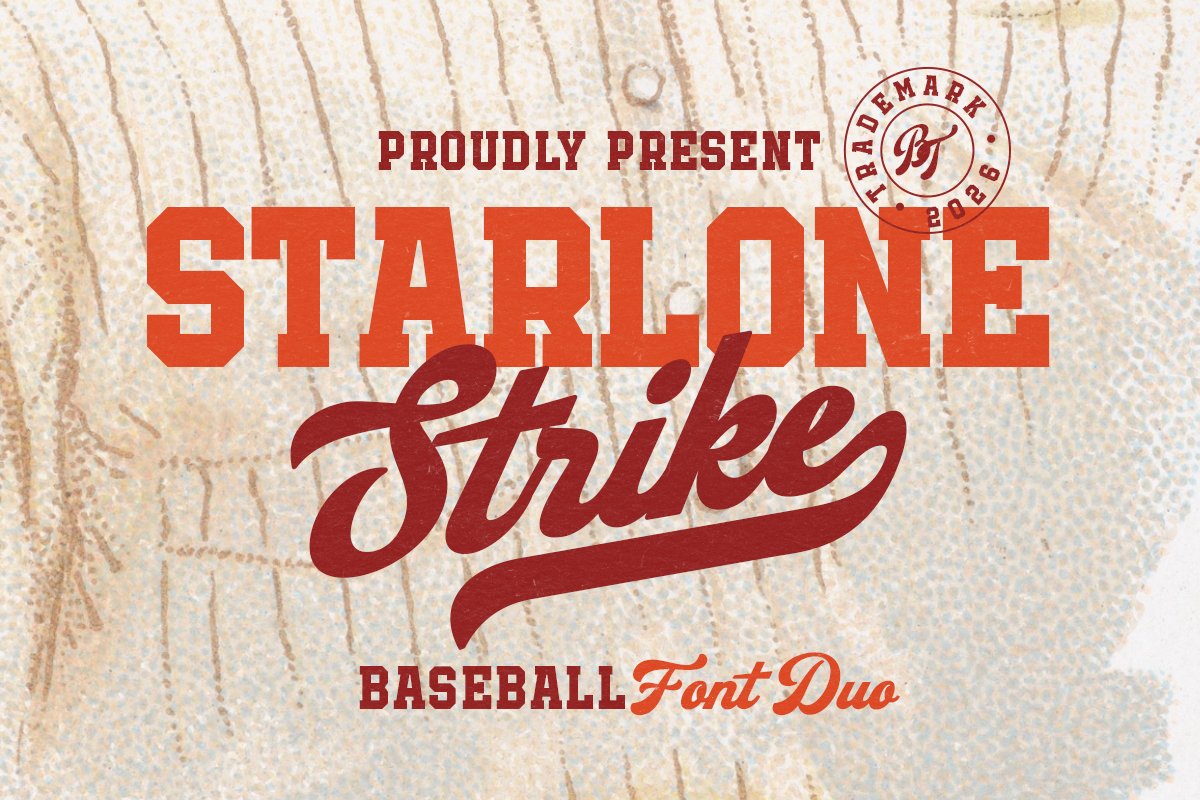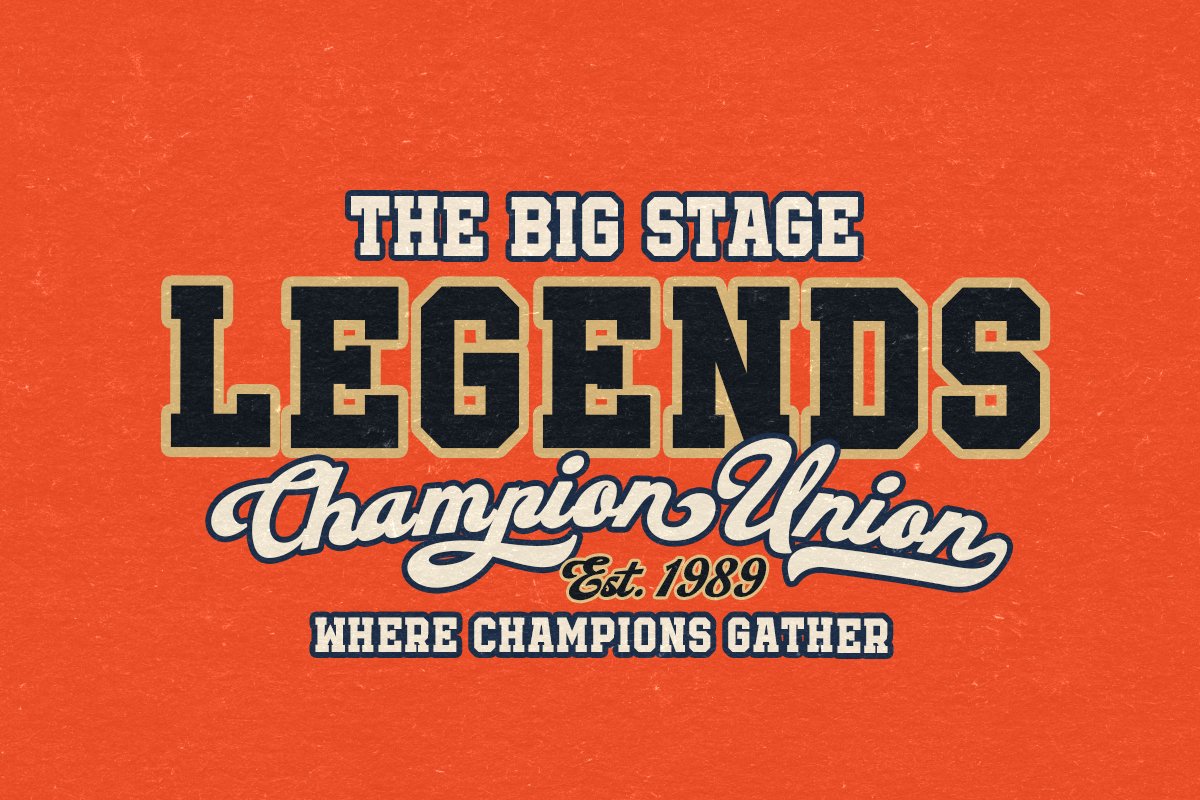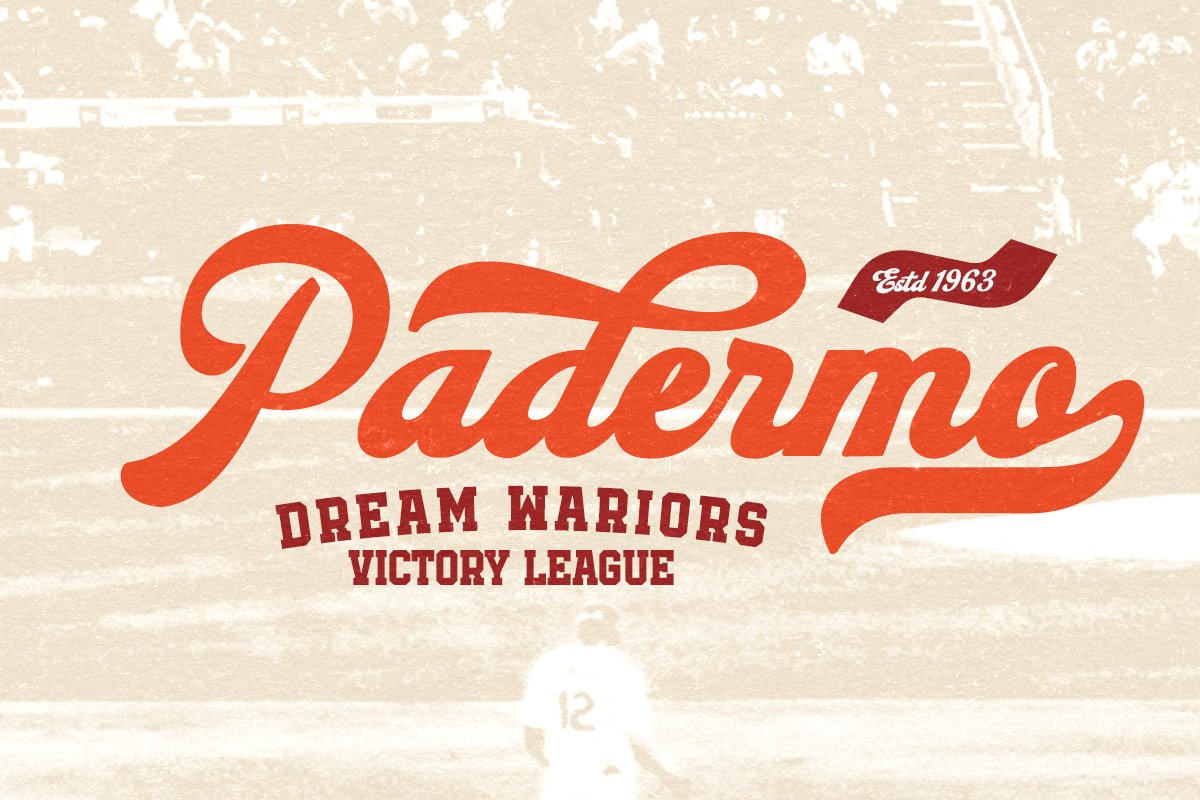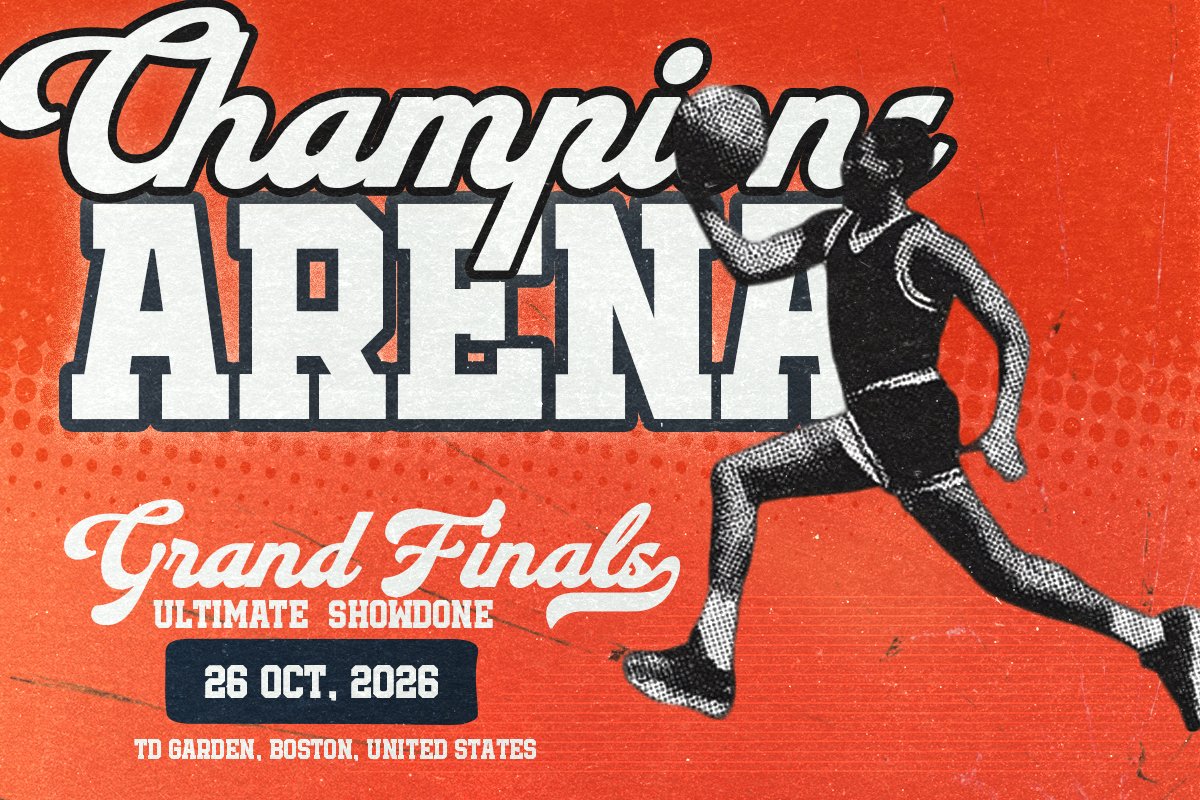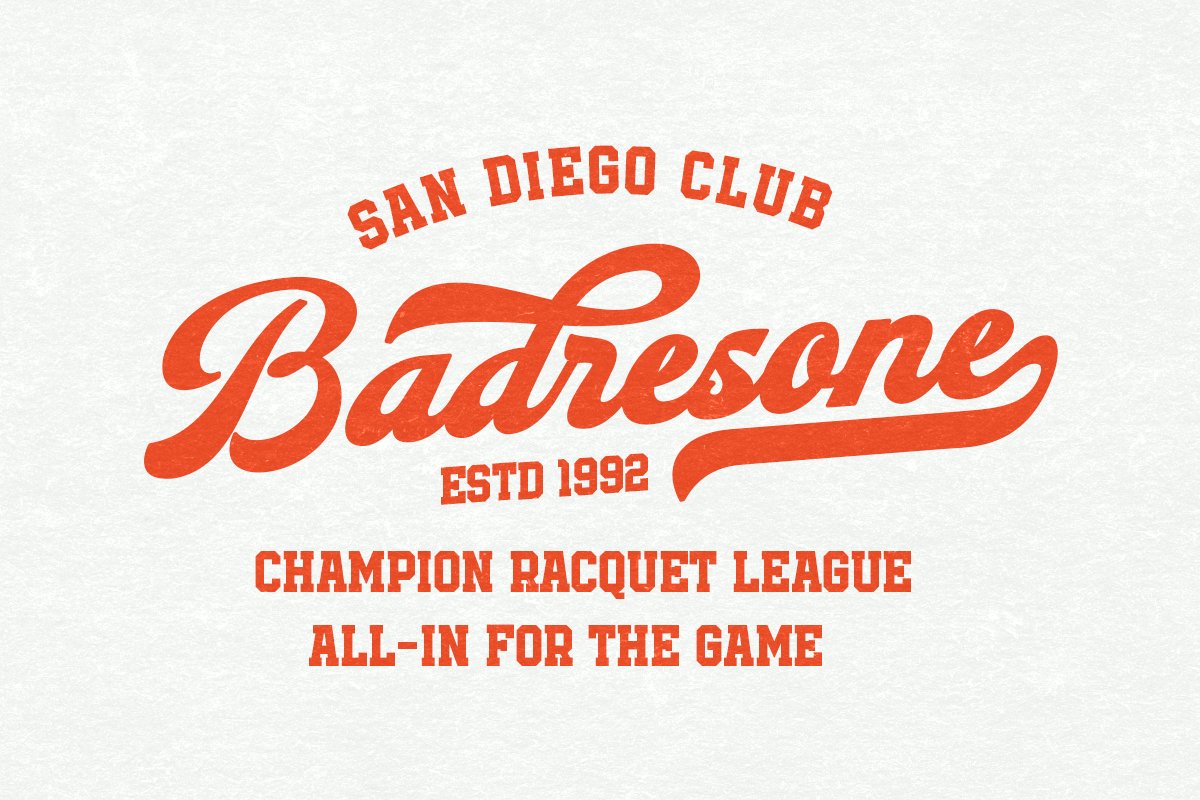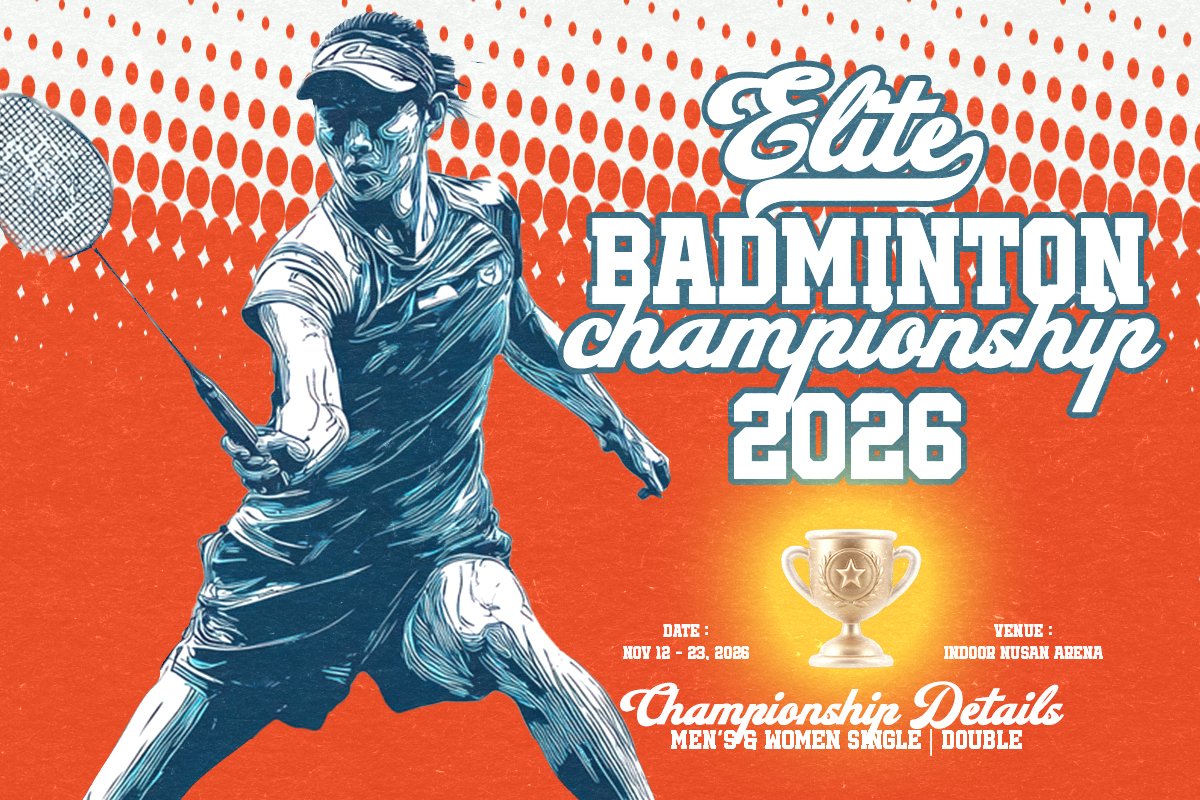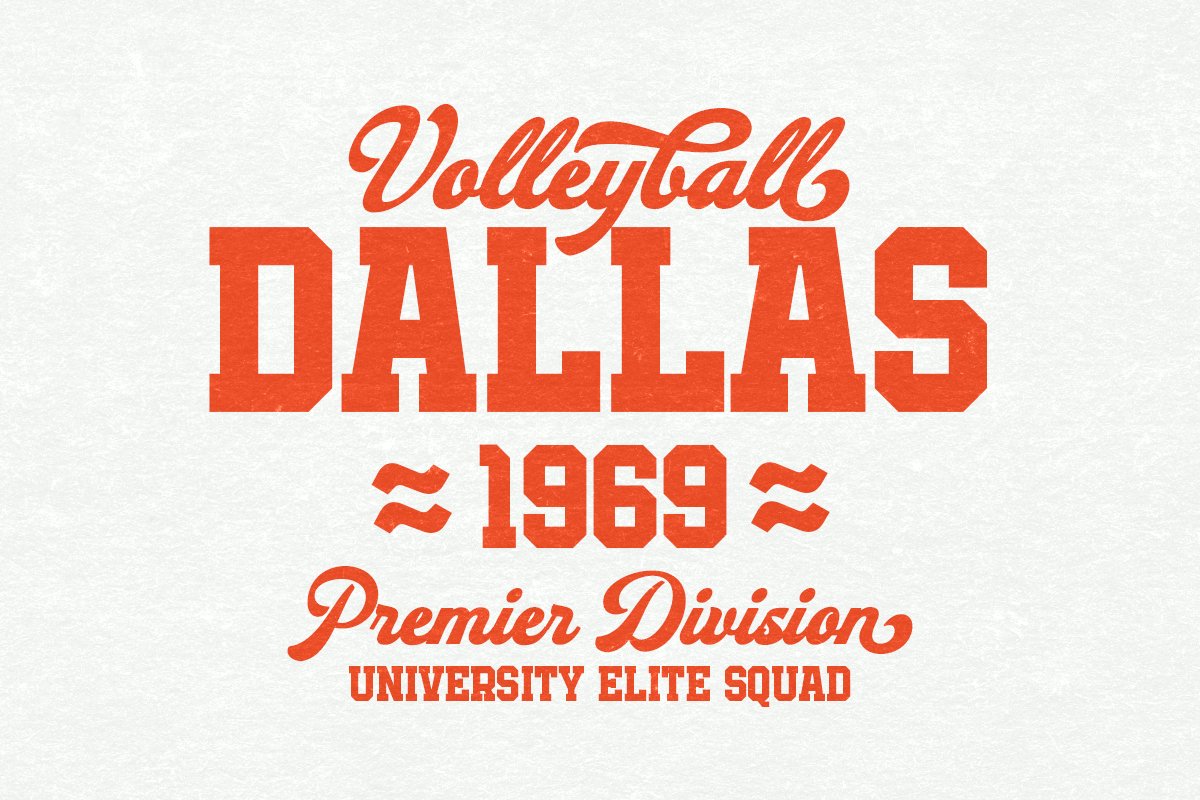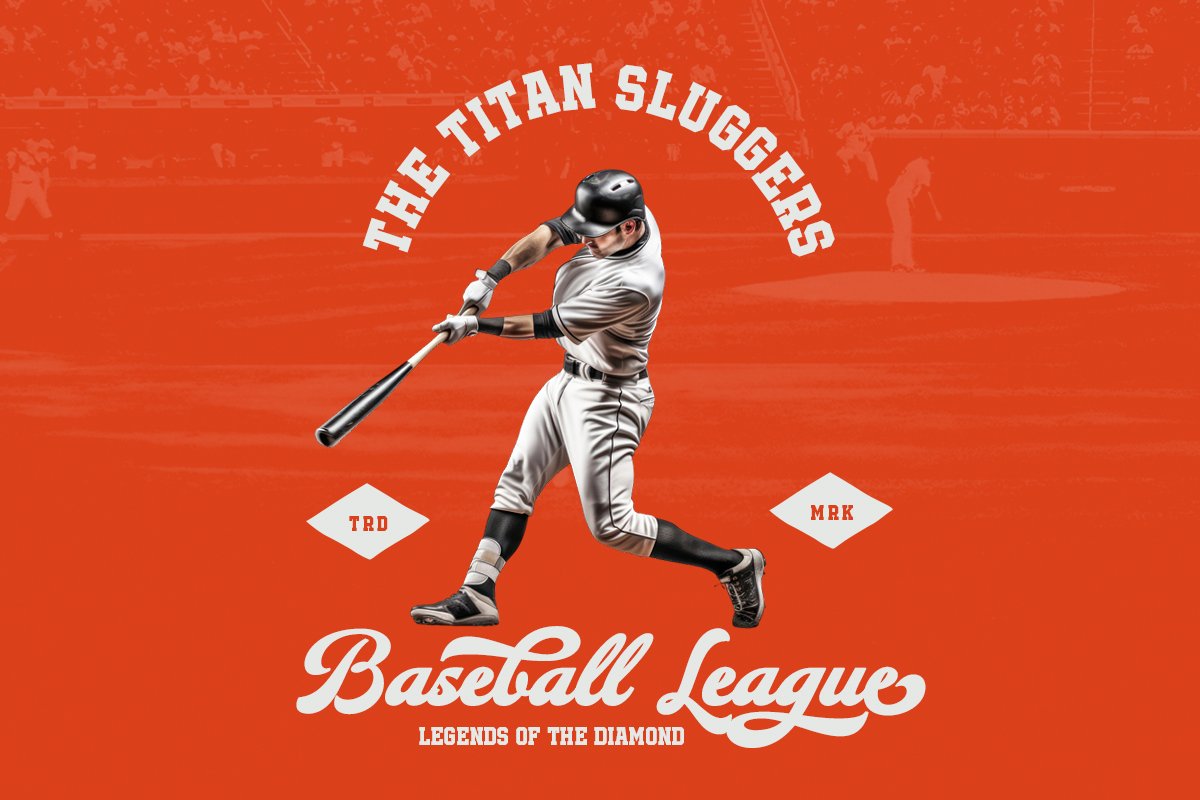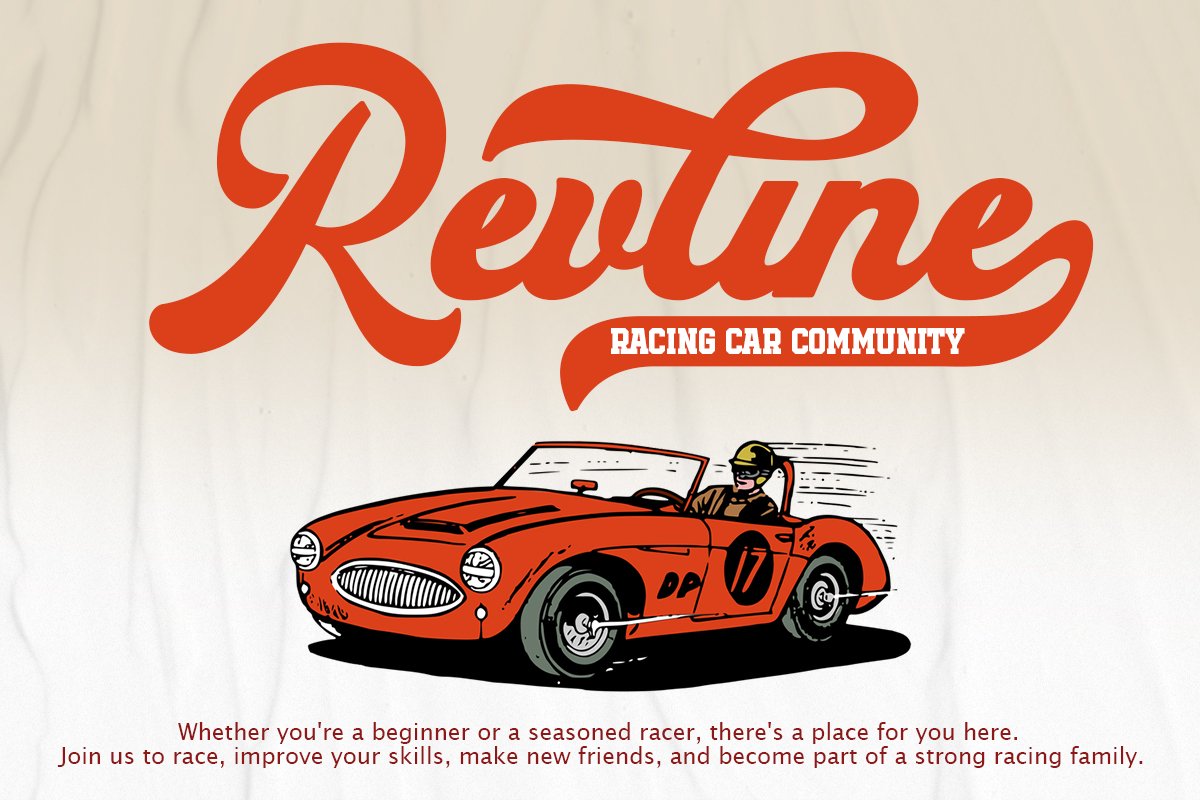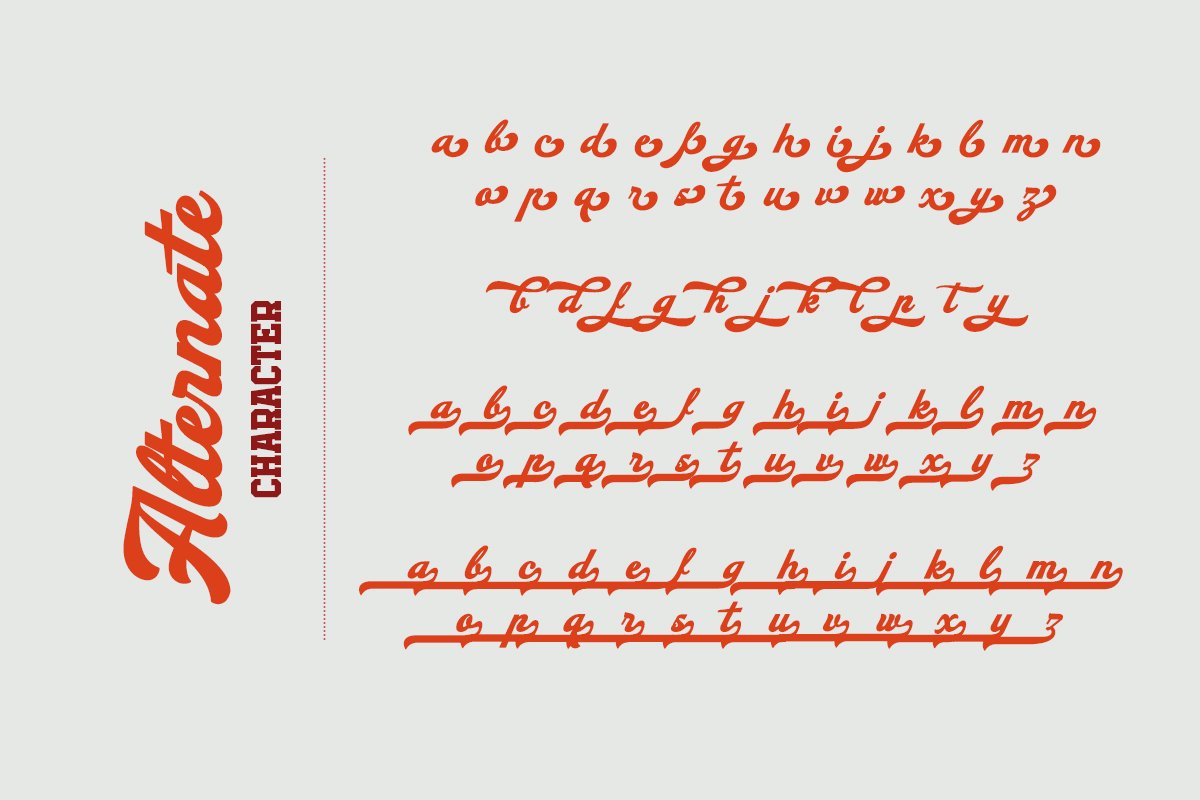
Introducing Starlone, a font duo combining a retro Script with a bold Slab Serif to create an authentic vintage and retro style. The stylish script features fluid strokes and decorative details, while the sturdy slab serif brings a strong, impactful presence with its bold and structured letterforms. This font duo is ideal for branding, logos, packaging, advertising, posters, and print projects. Its bold retro personality also makes it a great choice for baseball, football, and other vintage-inspired sports designs. Starlone also includes multilingual support, making it a versatile choice for creative projects around the world.
Starlone – Baseball Font Duo
Introducing Starlone, a font duo combining a retro Script with a bold Slab Serif to create an authentic vintage and retro style.